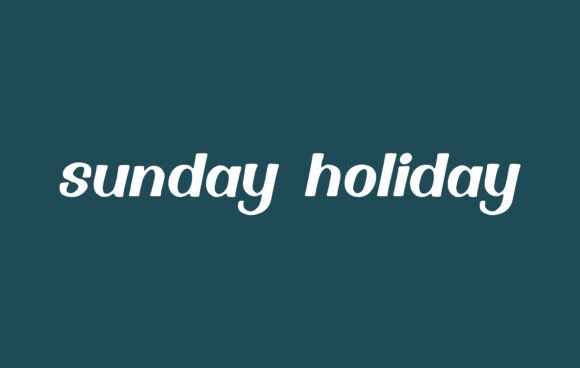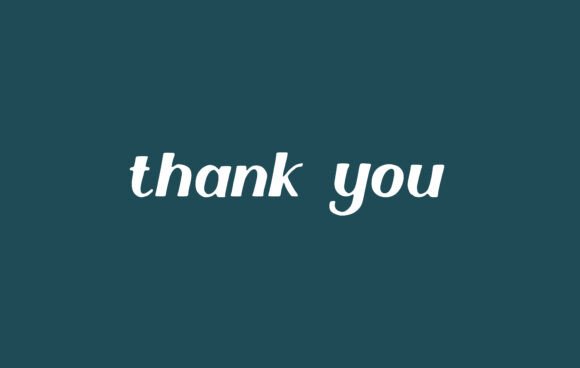
The Perfect Brushstroke: Unlocking the Magic of the Chelsea Font
Have you ever sat down with a blank sheet of paper, a pen in hand, and a burst of creative energy flowing through you? The thrill of bringing a new idea to life, watching it take shape, and watching it transform into something truly special is what drives many designers. It’s in these moments that we search for the perfect tool to help us convey our vision – a font that speaks directly to the heart, that whispers romance and elegance.
Enter the Chelsea Font, a beautiful, authentic handwritten font designed to elevate your creative endeavors. Whether you’re crafting a magazine headline, designing social media graphics, or creating a wedding invitation, this font is sure to leave a lasting impression. Its legibility and charm make it a versatile choice for a wide range of designs, and its romantic touch is sure to capture the hearts of your audience.
For designers, the Chelsea Font is a valuable addition to their toolkit – a trusted companion that helps bring their ideas to life in a way that’s both personal and professional. With its timeless charm, this font is sure to become a favorite among creatives everywhere.
Chelsea Font Key Features
- Unique Characteristics: Chelsea Font features a unique blend of modern and classic elements, with clean lines, geometric shapes, and subtle flair, making it perfect for luxury and high-end designs.
Chelsea Font Review
When I first laid eyes on the Chelsea font, I was immediately drawn to its unique blend of modern and classic elements. ✨ The font’s clean lines and subtle flourishes give it a sophisticated, high-end feel that’s perfect for luxury brands or high-end publications.
The font’s versatility is another major selling point. It works beautifully in both print and digital formats, and its range of weights and styles make it easy to adapt to different design needs. ✨ From headings to body text, the Chelsea font is a reliable choice for any project.
- Unique blend of modern and classic elements
- High-end, sophisticated feel
- Works well in both print and digital formats
- Range of weights and styles for versatility
- ⚠️ May be too formal for casual or creative projects
- ⚠️ Limited availability of alternate glyphs or special characters
Overall, I think the Chelsea font is a solid choice for designers looking for a high-end, versatile font. While it may not be the best fit for every project, its unique style and range of weights make it a valuable addition to any design arsenal.
Chelsea Font: A Practical Application Guide
Getting the Most Out of Chelsea Font
For best results, use Chelsea Font in headings and titles to add a touch of elegance and sophistication. Pair it with a clean and simple font for body text to create a visually appealing contrast.
Chelsea Font is ideal for:
– Luxury brand logos and marketing materials
– High-end product packaging and labels
– Fashion and beauty branding and advertising
Alternatives to Chelsea Font for Designers
Bodoni is a classic serif font that originated in the 18th century. It is characterized by its elegant and refined feel, making it perfect for formal and high-end designs. Use Bodoni for luxury branding, fashion, and editorial projects.
Bodoni is similar to Chelsea Font in its classic and elegant feel, but it has a more formal and sophisticated tone. While Chelsea Font is more versatile, Bodoni is ideal for projects that require a touch of luxury and refinement.